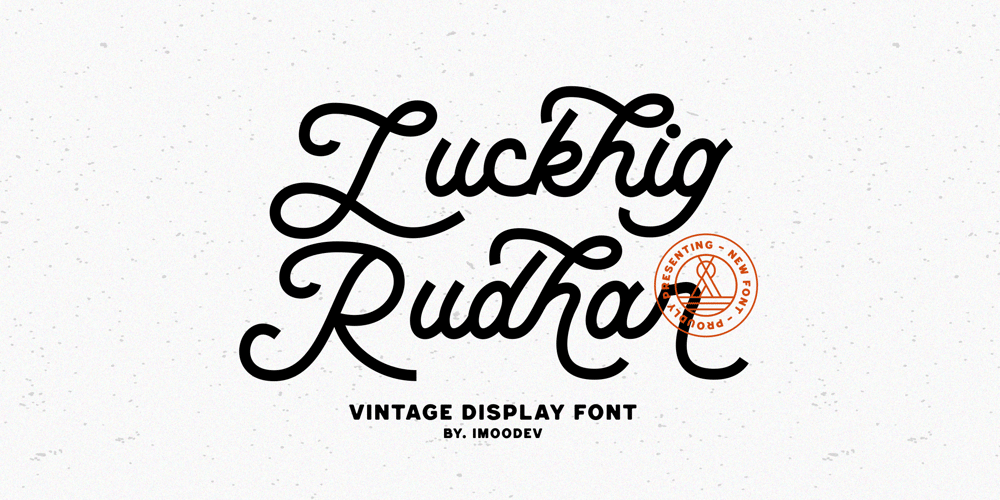
Luckhig Rudhar Font Family was designed by Aulia Savira Putri and published by Imoodev. Luckhig Rudhar contains 1 styles and family package options. Luckhig Rudhar is creative cursive fonts with visual elegance, smooth curves, and beautiful ligatures clear, making your work look true and attractive.A versatile font that works in both large and small sizes. This font is suitable for a wide variety of projects such as invitations, logos, branding, magazine, photography, card, product packaging, mugs, quotes, poster, labels, signatures, and more.